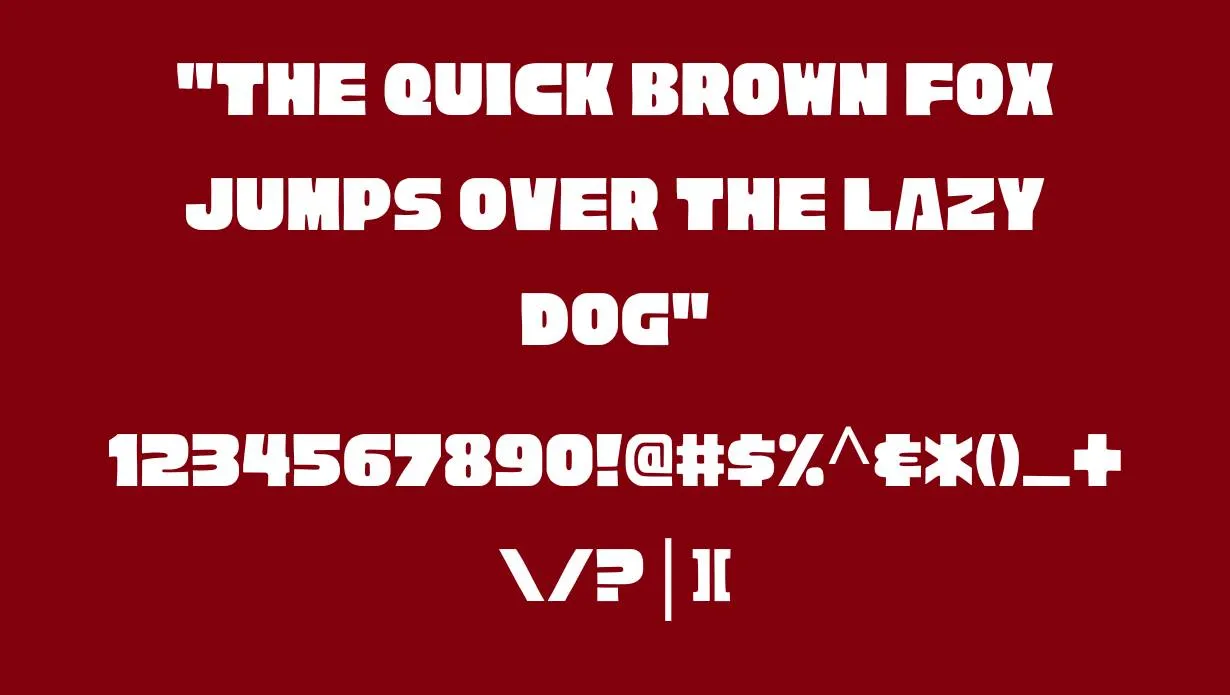
Let’s talk about a very amazing display typeface Cubao Font. Aaron Amar designed this attractive font. It is the style of Jeepney Signage. It has three different styles Cubao Narrow, Cubao Regular, and Cubao Wide. This font also contains 188 characters and 153 glyphs.